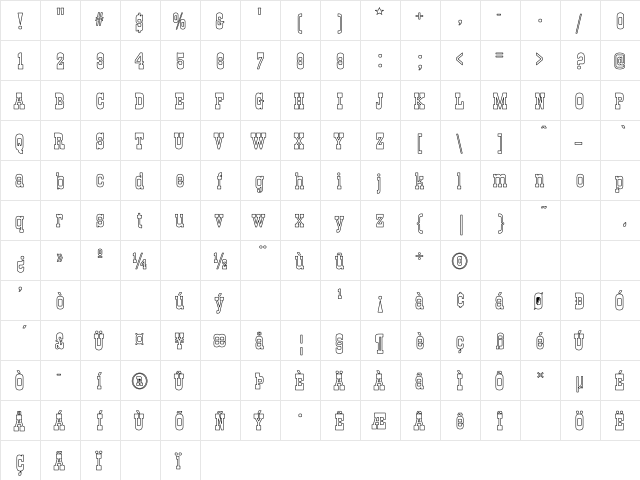
Old-TownExt-Normal Hollow Regular
Design Context for Old-TownExt-Normal Hollow Typeface
Old-TownExt-Normal Hollow takes a measured approach to typography — its balanced proportions and neutral character make it a reliable workhorse for both digital and print work.